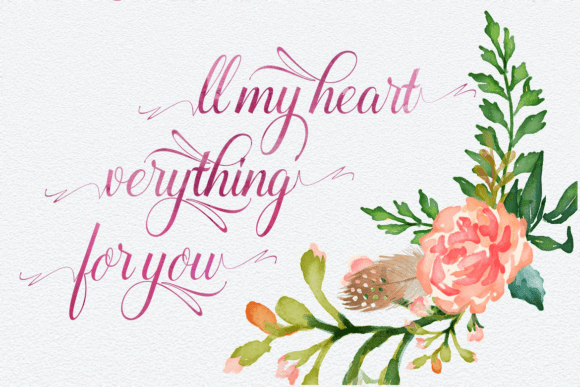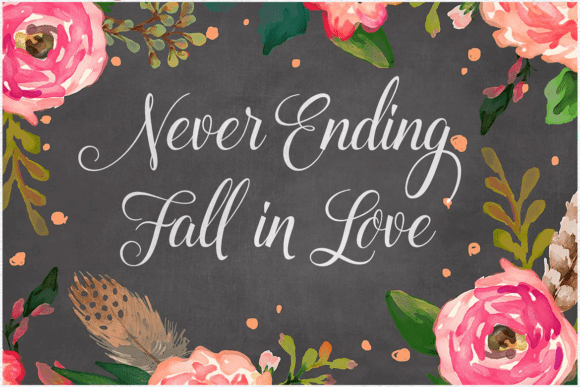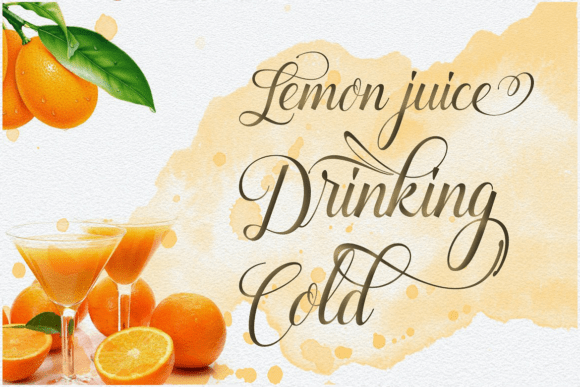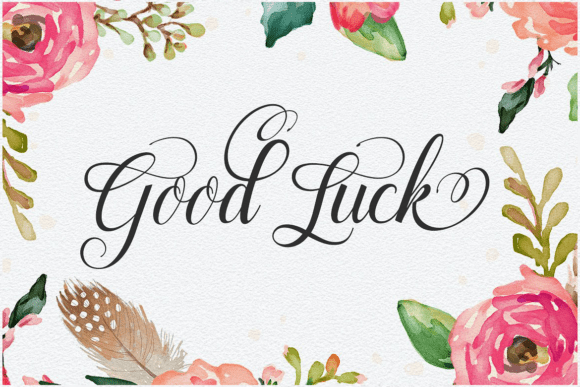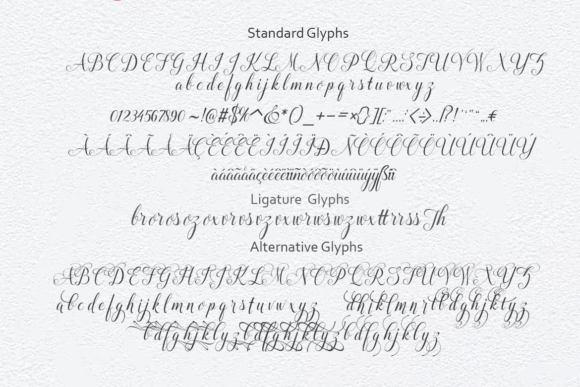
Introduction to Maphylla Font Font
Fonts play a crucial role in design, and the Maphylla Font font is a typeface that brings both character and versatility to any project. Whether you’re working on a branding project, a website, or a print design, the Maphylla Font font offers a unique style that can elevate your work.
Maphylla font is an exquisite modern calligraphy typeface that defines sophistication through its delicate, elongated swashes and airy letterforms.
This Maphylla typeface captures the grace of classical penmanship while maintaining a fresh, contemporary edge It is the definitive selection for botanical-themed designs, bridal stationery, and luxury beauty branding.
Key Features of Maphylla Font Font
Why Choose Maphylla Font Font?
The Maphylla Font font is more than just a typeface – it’s a design tool that helps you communicate your message with style and clarity. Its unique character set and versatile design make it suitable for a wide range of applications, from elegant invitations to bold headlines.
With its carefully crafted letterforms and balanced proportions, the Maphylla Font font ensures readability and visual appeal across all mediums.
What makes Maphylla Font font special?
The Maphylla Font font stands out with its unique design, exceptional readability, and versatility across various design applications.